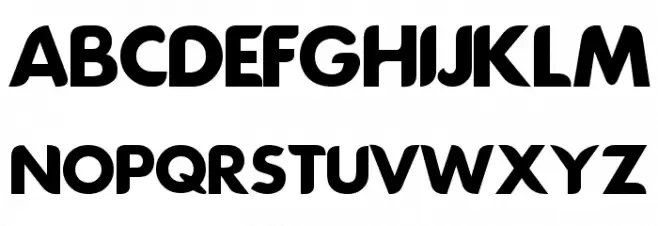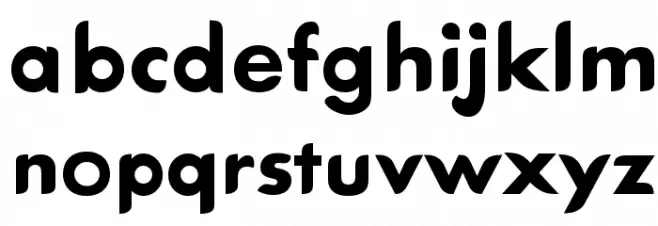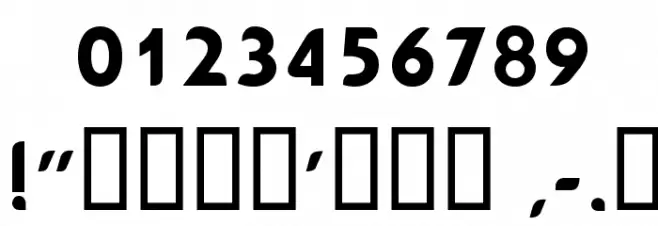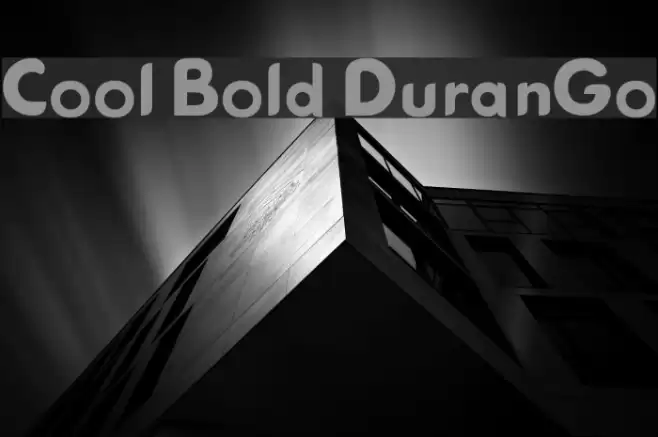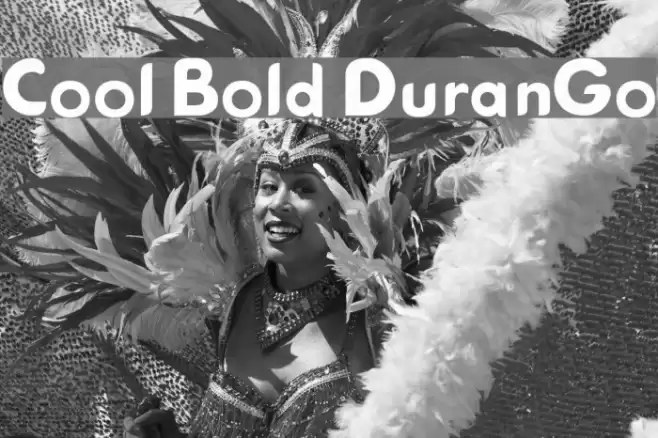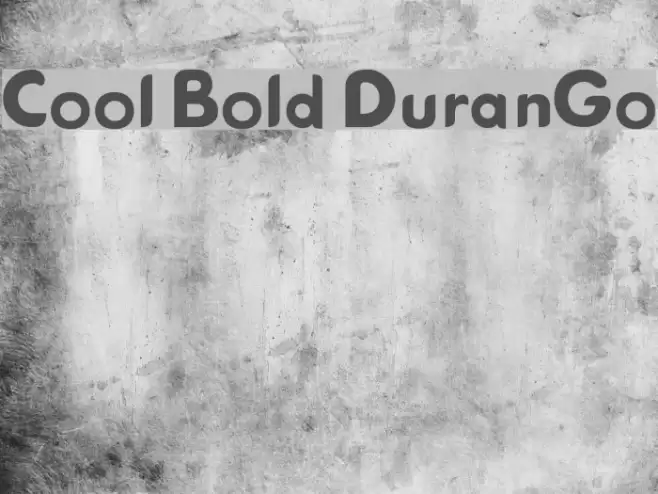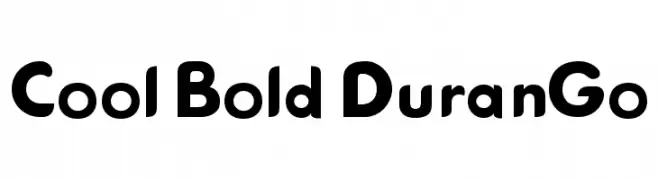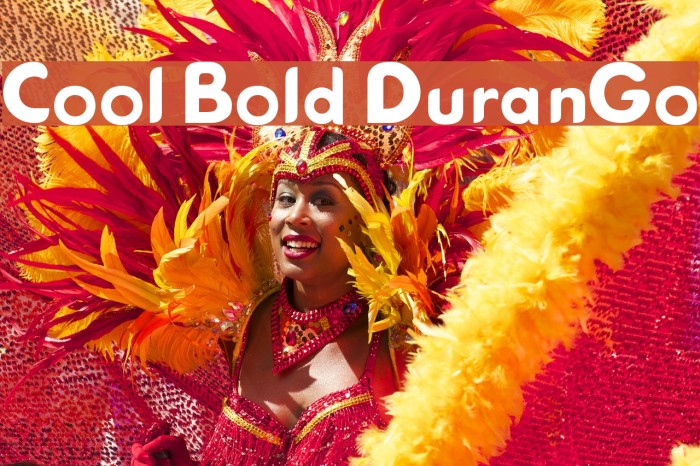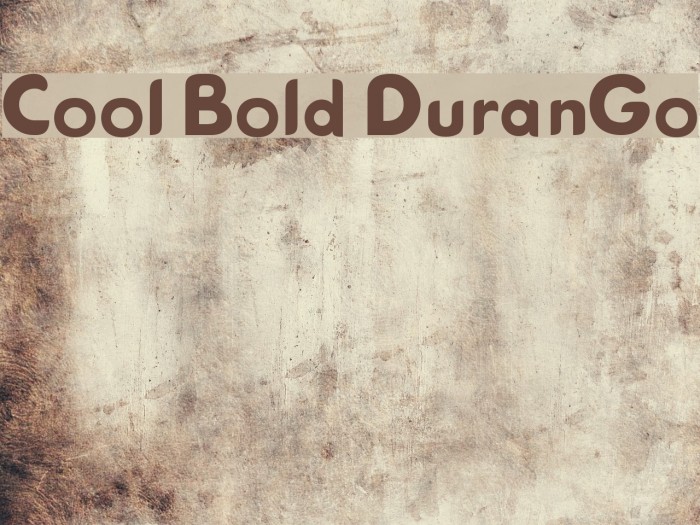
Cool Bold DuranGo
This font features a bold and rounded style, characterized by its thick strokes and smooth curves. The uppercase letters are robust and commanding, while the lowercase letters maintain a consistent, friendly appearance. The numbers are equally bold, ensuring visibility and clarity. Special characters are designed with the same rounded edges, providing a cohesive look across all glyphs. The overall design is modern and approachable, making it suitable for a variety of applications where a strong yet friendly impression is desired.
A bold, rounded font with smooth curves and a modern, approachable style.
- Proposed Projects: Ideal for branding, headlines, posters, and any project requiring a bold, friendly typeface.
- Use Case: Headlines, Logos, Posters